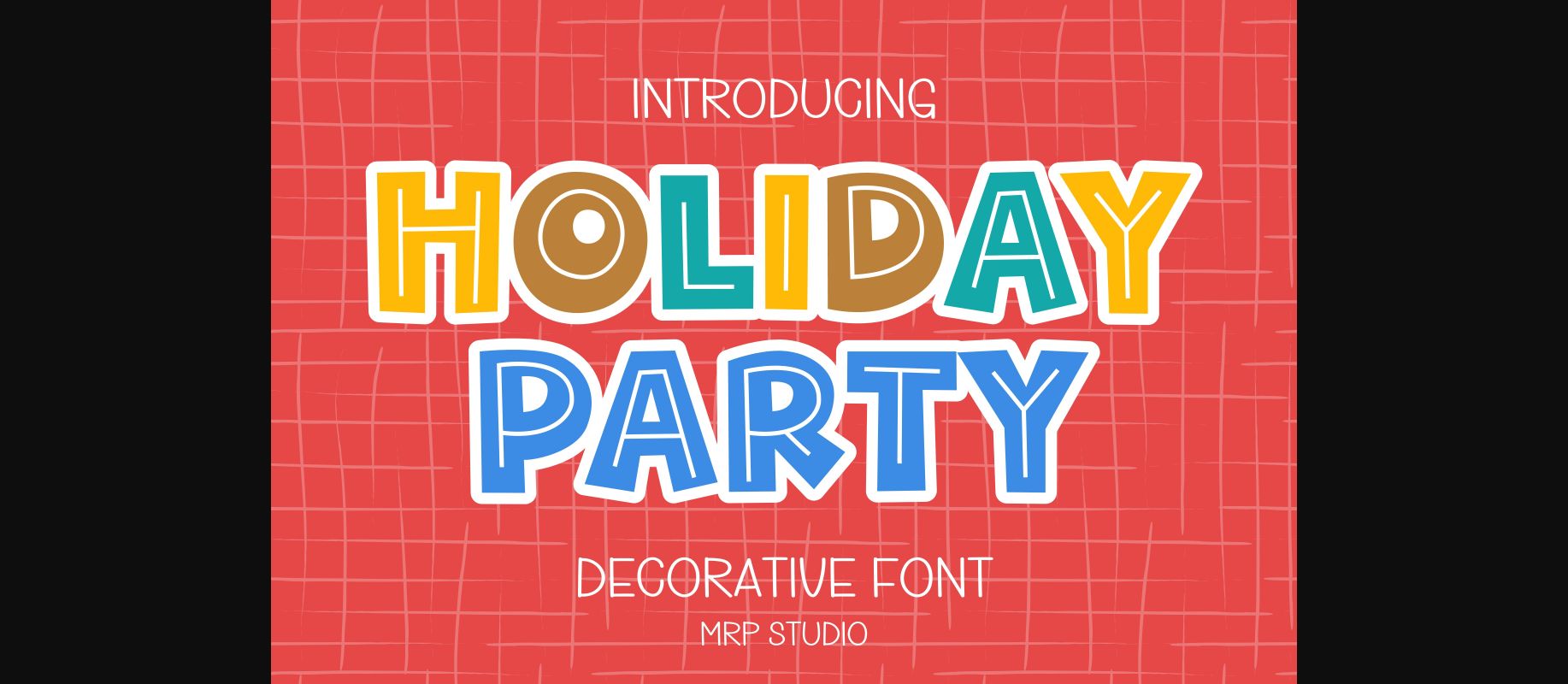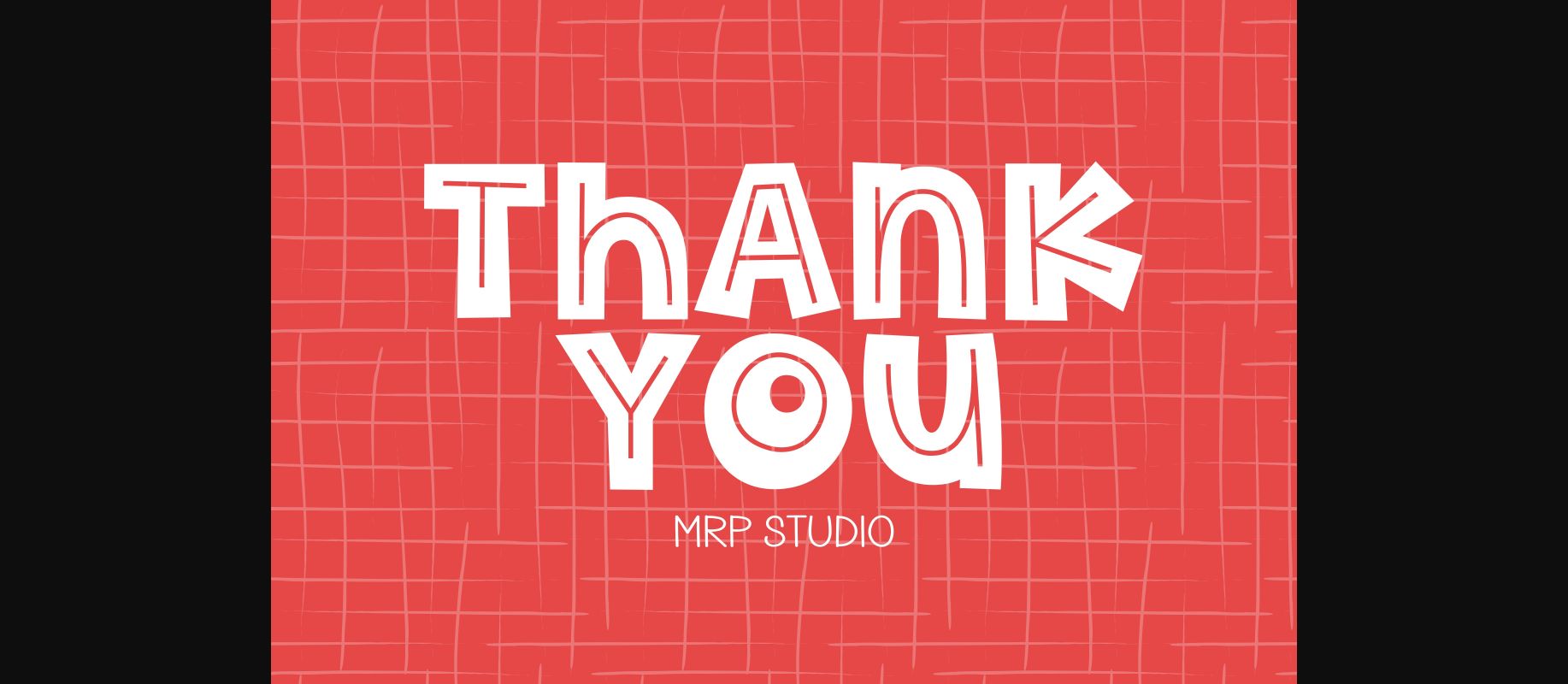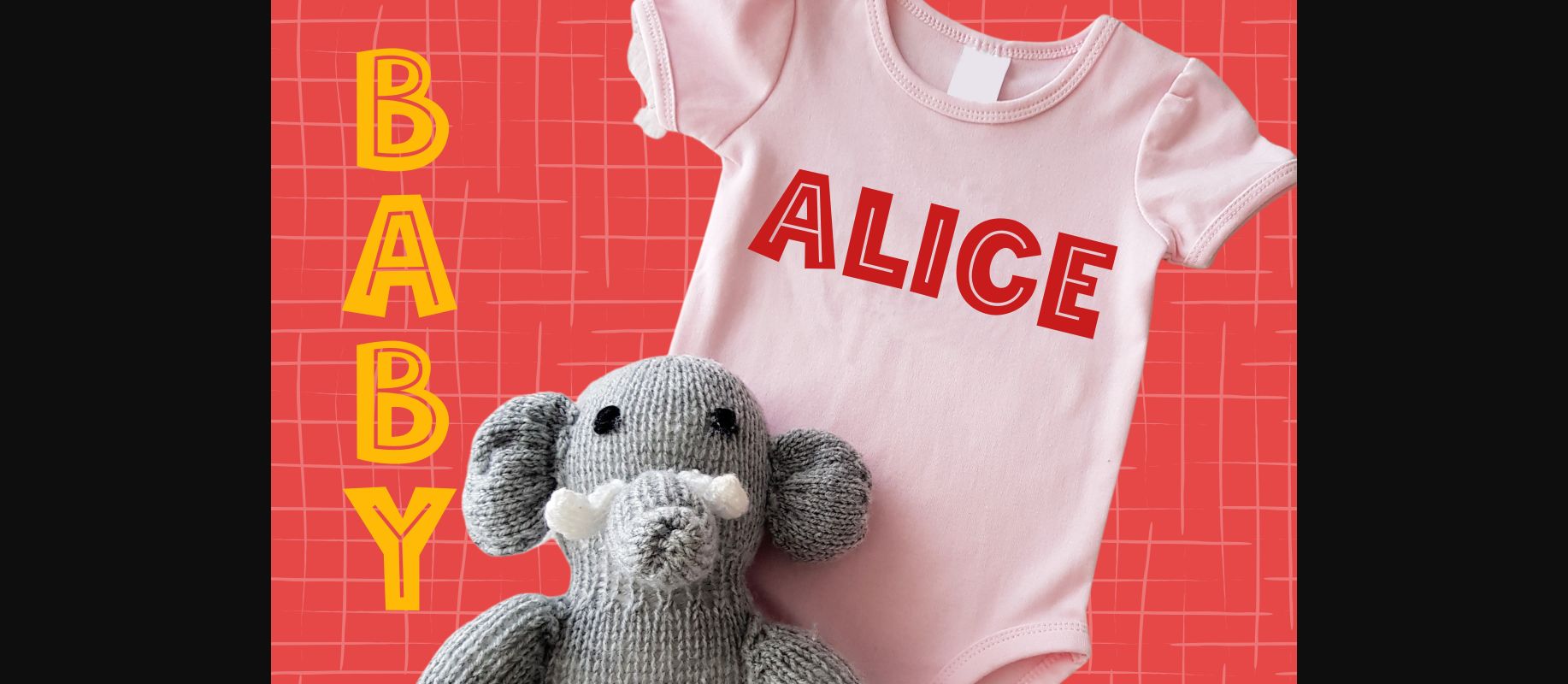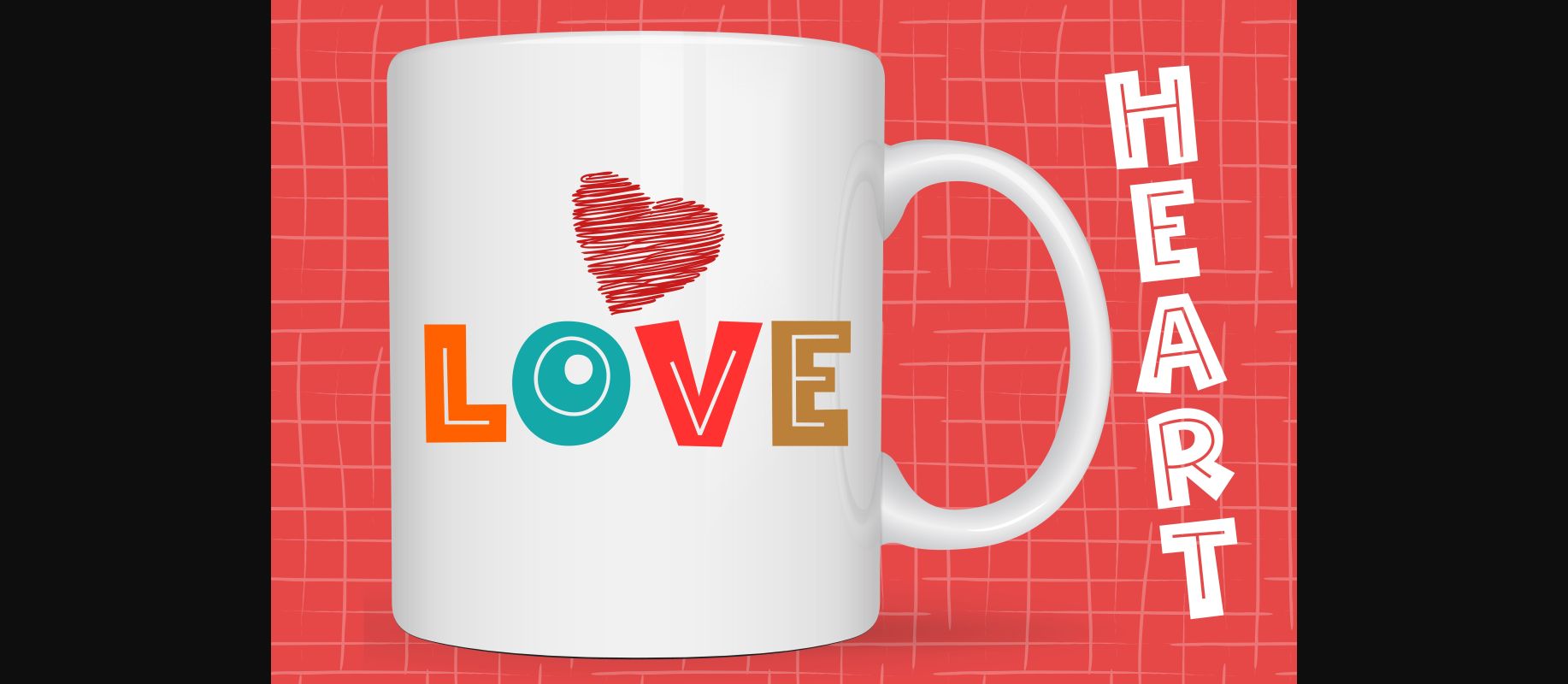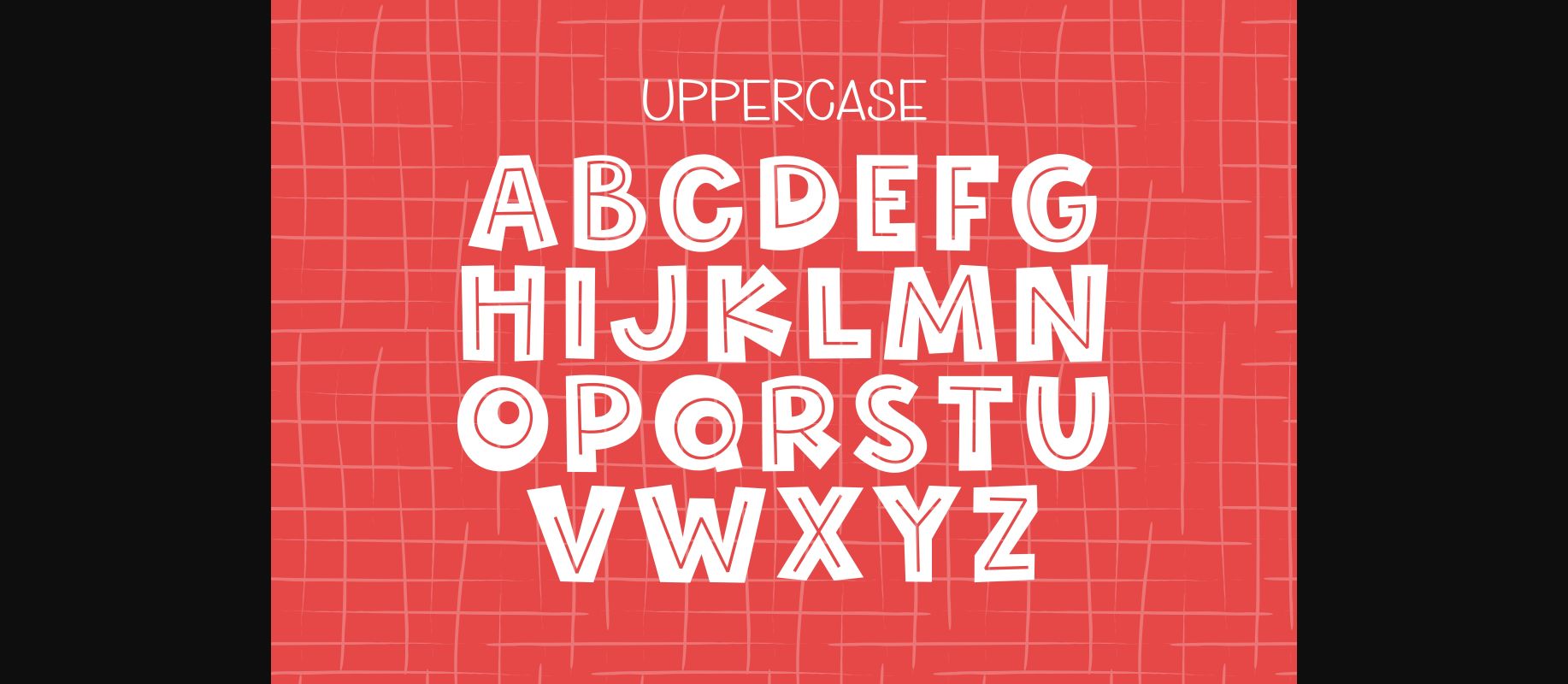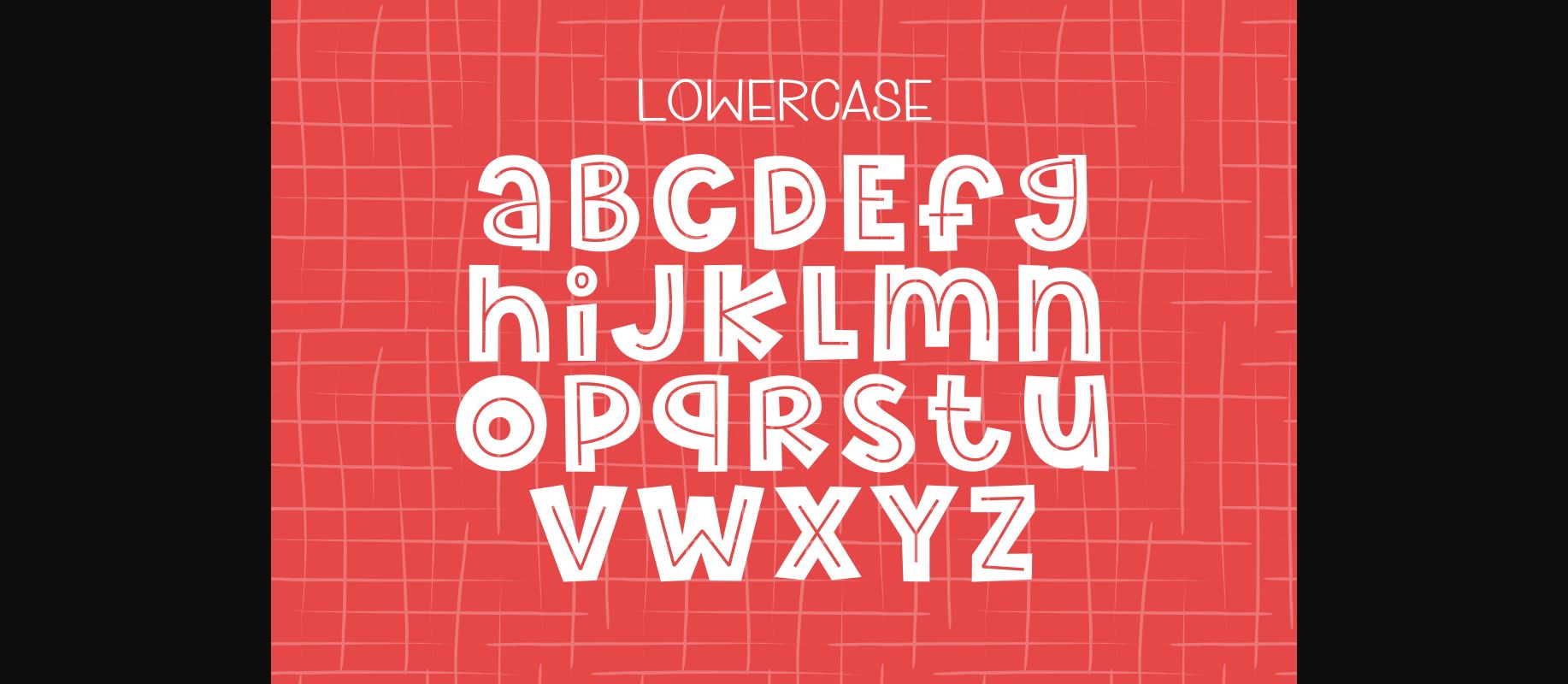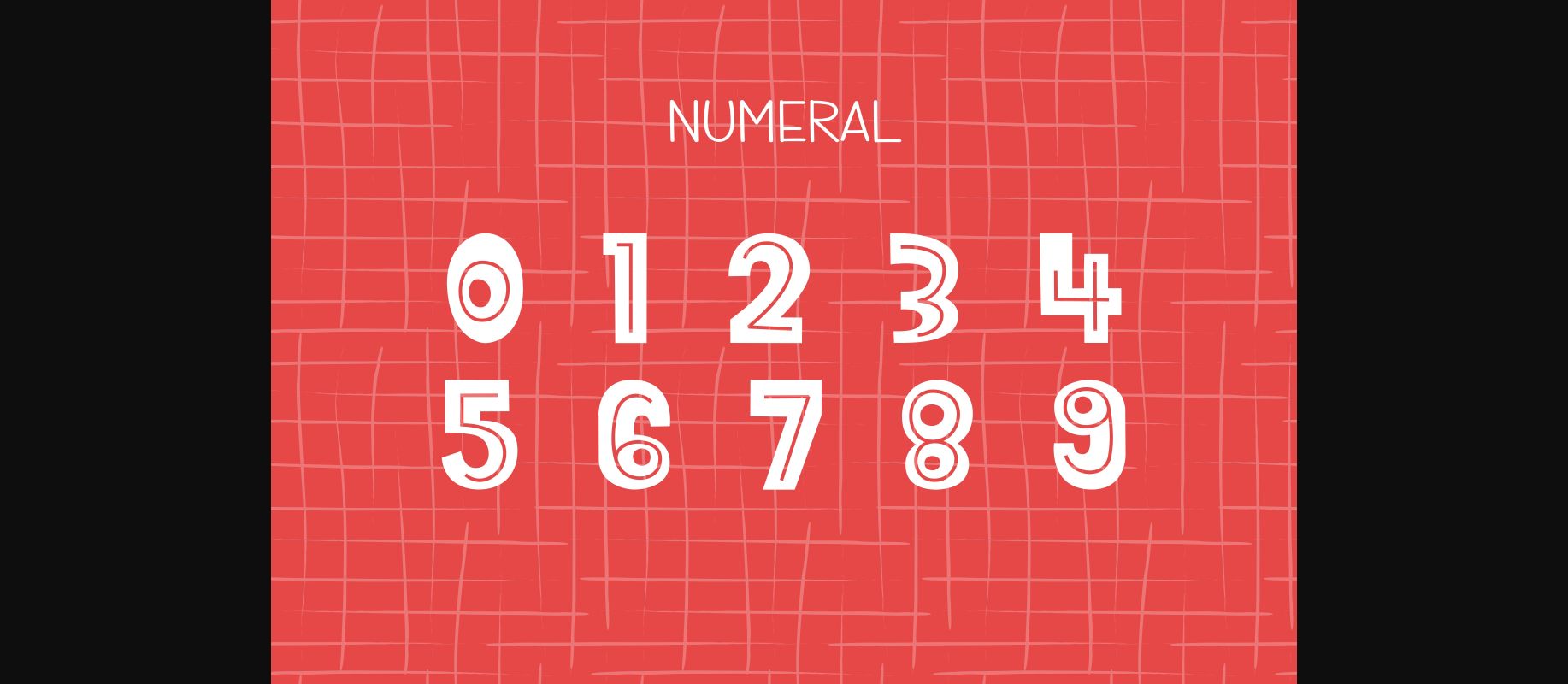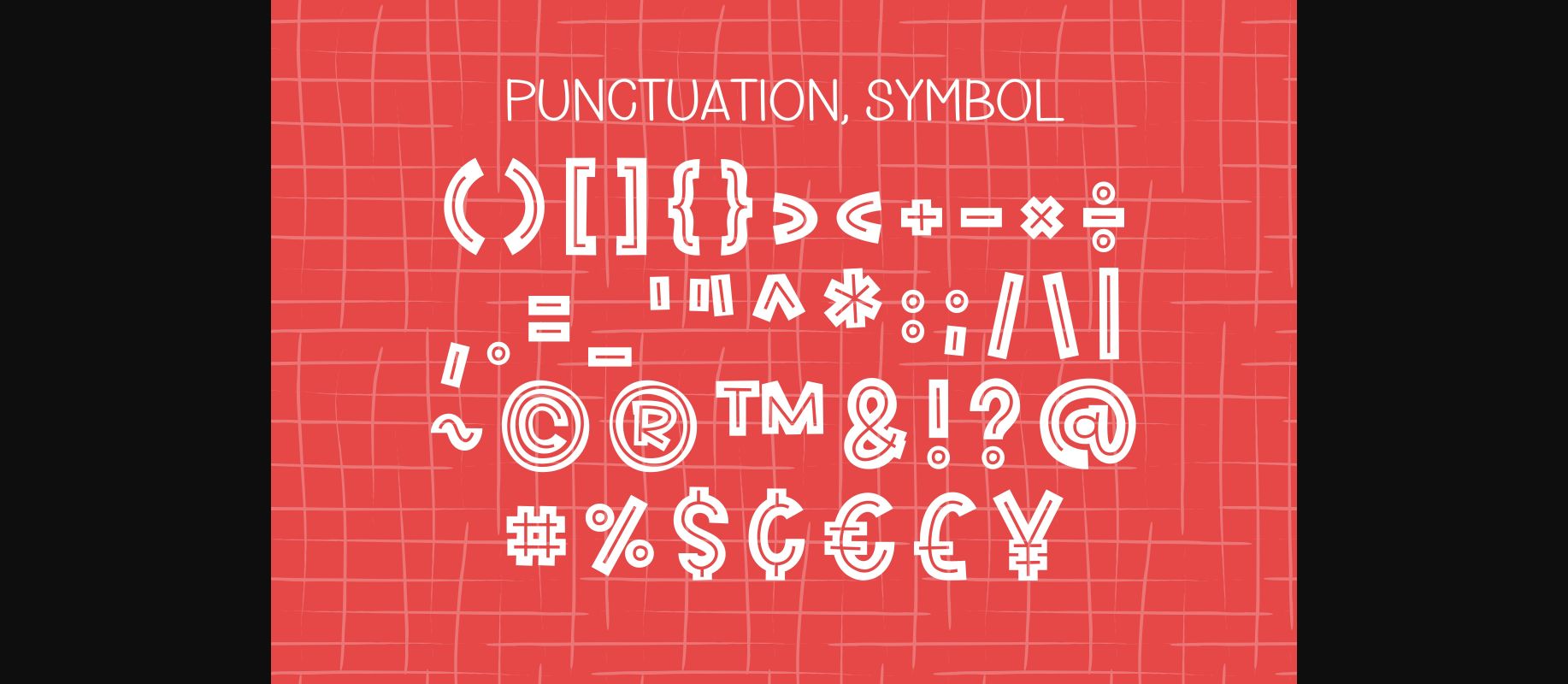
Holiday Party Font
About Holiday Party Font
Holiday Party is a cute and adorable decorative font. It is perfectly suited for all child-related project such as back to school, birthday party decoration and much more. Add this font to any project that needs a bright and fun touch.